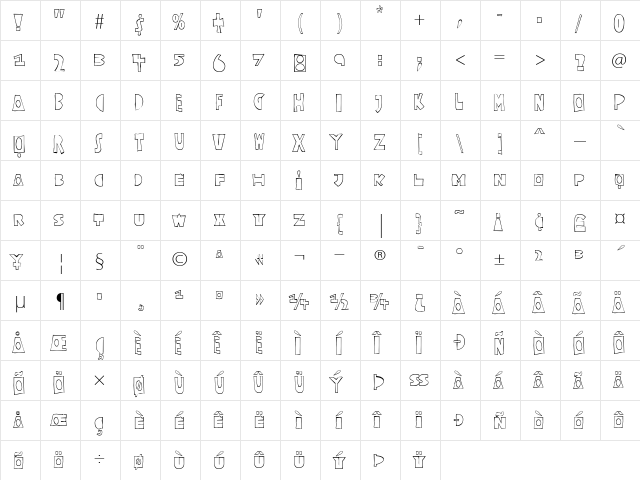
Coriander Roman
Design Context for Coriander Typeface
Coriander is a composed and adaptable typeface that performs quietly and consistently across a wide range of design contexts.